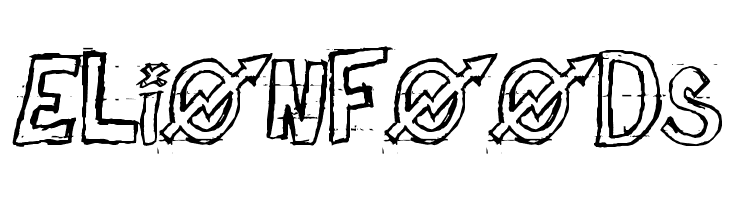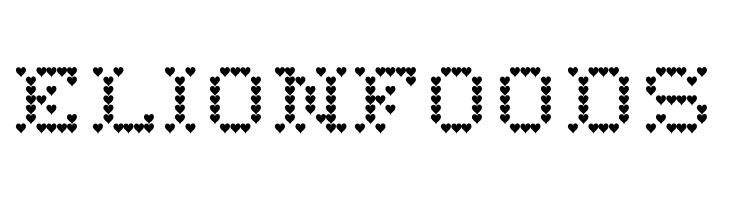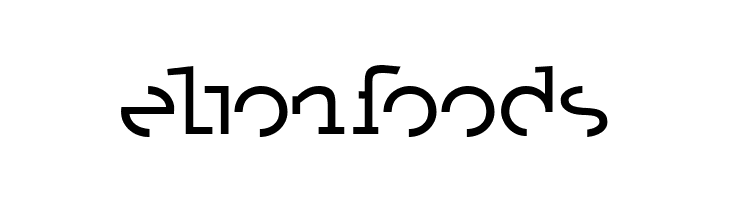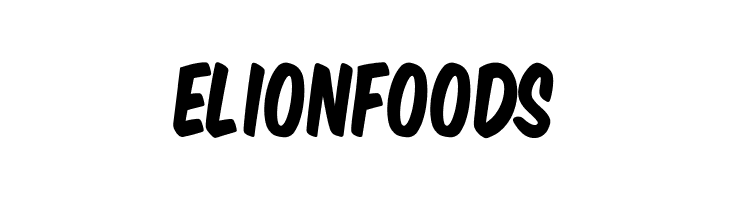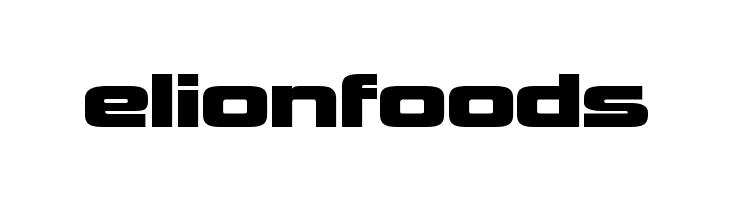
A bold, playful font with rounded edges and a retro pop culture vibe.
A bold, playful font with rounded edges and a retro pop art vibe.
A bold, 3D font with strong outlines and shadow effects, ideal for impactful designs.
A classic serif font with elegant strokes and refined details.
A bold serif font with classic styling and moderate stroke contrast.
A bold, italic serif font with elegant, flowing strokes.
An elegant serif italic font with moderate contrast and refined style.
A bold, decorative font inspired by classic Broadway marquees, featuring dotted outlines.
A bold, jagged, and dynamic brush-style font with an aggressive edge.
A sophisticated script font with flowing, cursive letters and elegant curves.
A bold, dynamic script font with a playful, brush-like texture.
A bold, distressed font with a gritty, urban aesthetic.
A bold, geometric font with a broken, fluid pattern and a three-dimensional look.
A bold, distressed font with a grunge and ghostly appearance.
A bold, distressed font with a grunge aesthetic and irregular edges.
A dynamic, expressive handwritten font with fluid, cursive strokes.
A dynamic, handwritten font with bold, sweeping strokes and a playful, artistic style.
A bold, geometric font with uniform strokes and tight spacing, ideal for modern designs.
A bold, geometric font with rounded corners and a modern style.
A bold, italicized font with a modern, dynamic style.
A classic serif font with bold strokes and high contrast, ideal for formal use.
A classic italic typeface with elegant curves and delicate serifs.
A playful and elegant script font with fluid, interconnected letterforms.
A playful, flowing script font with smooth, rounded characters.